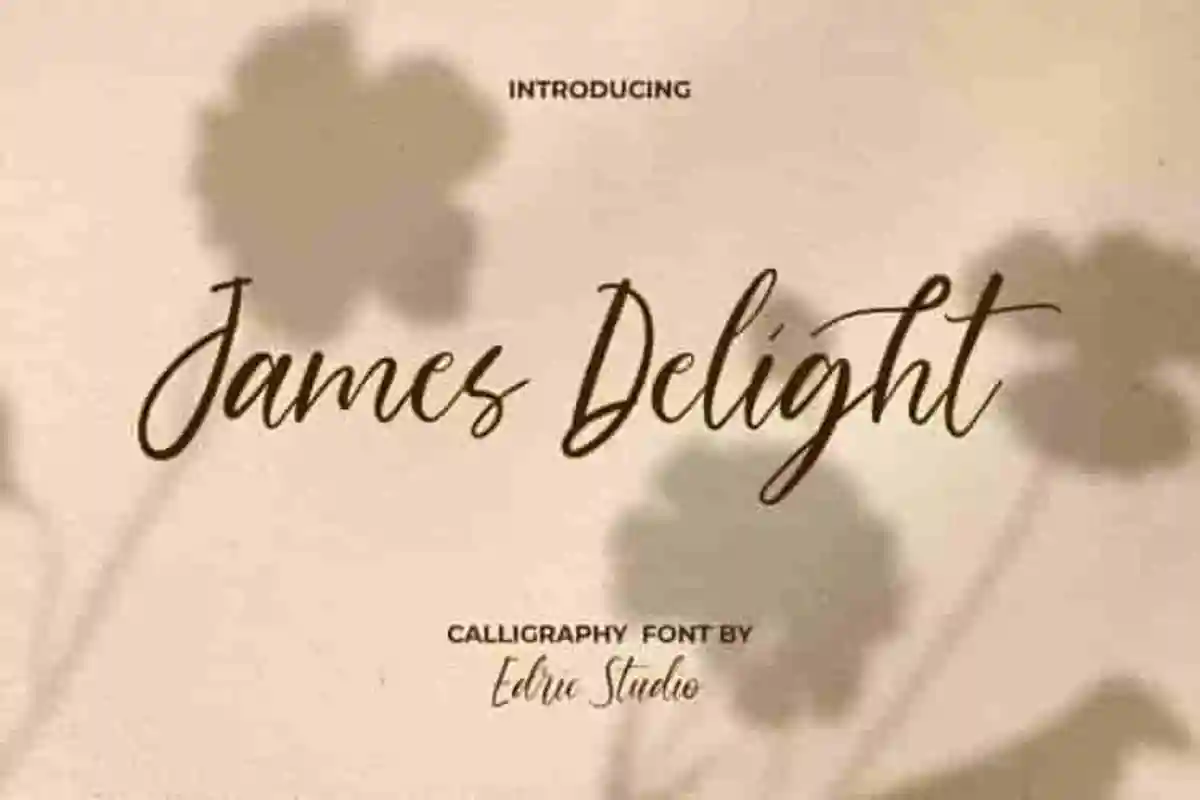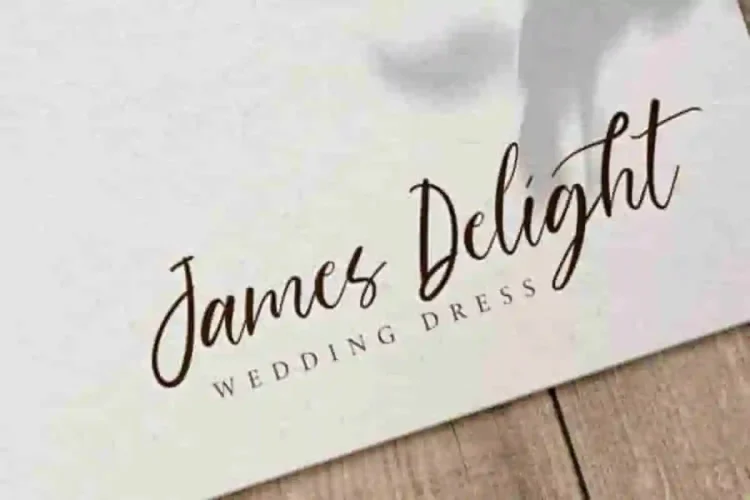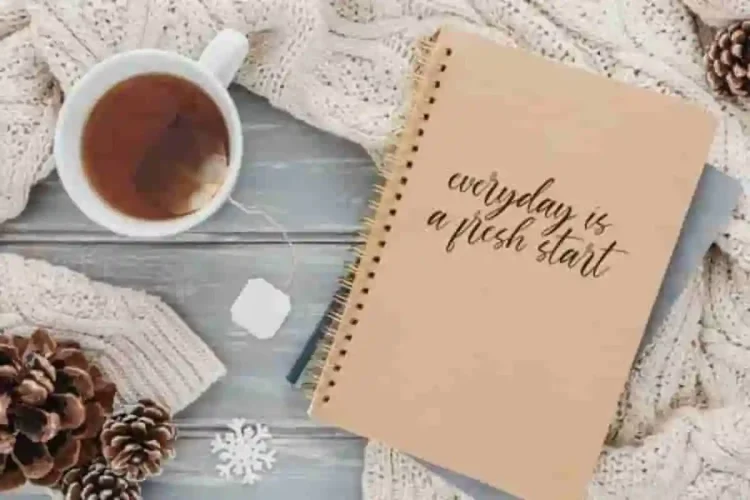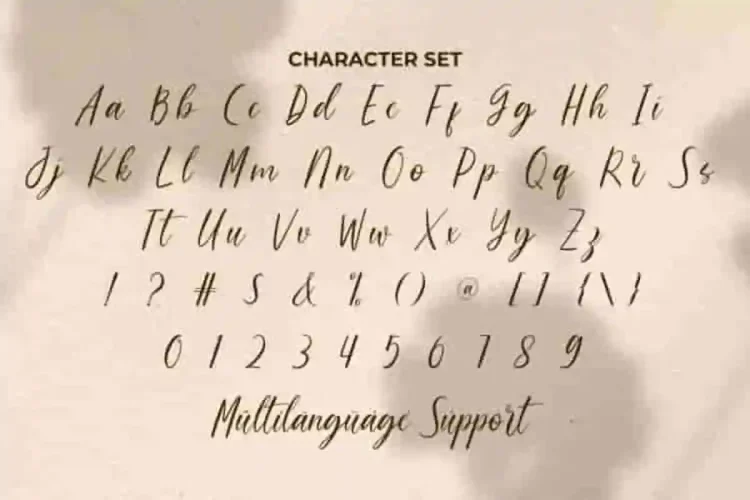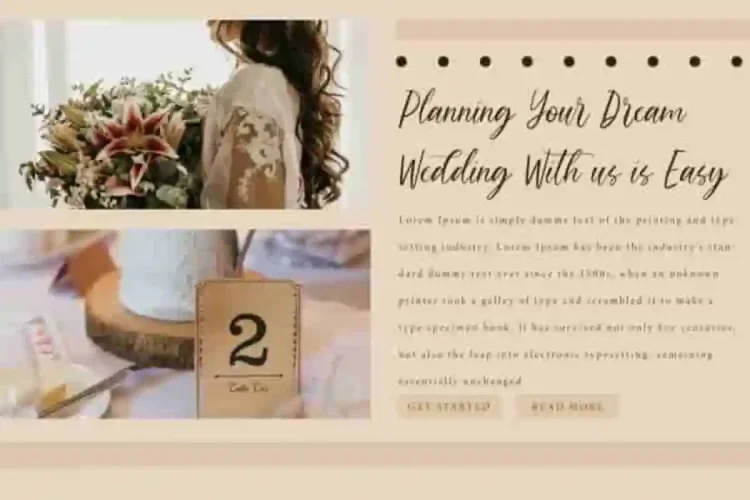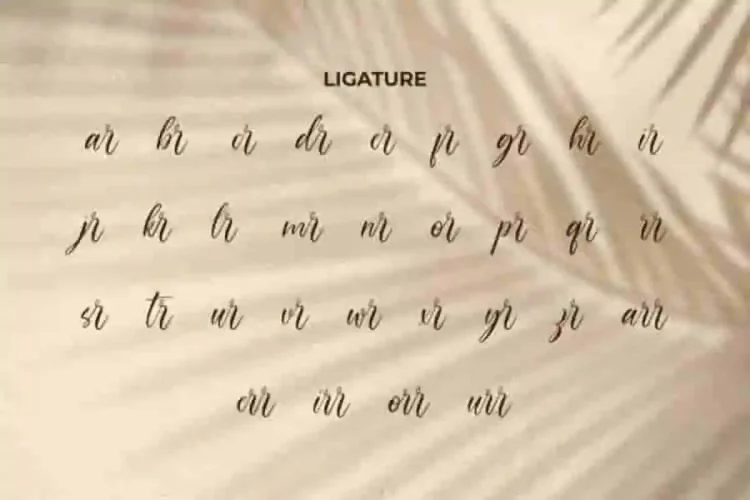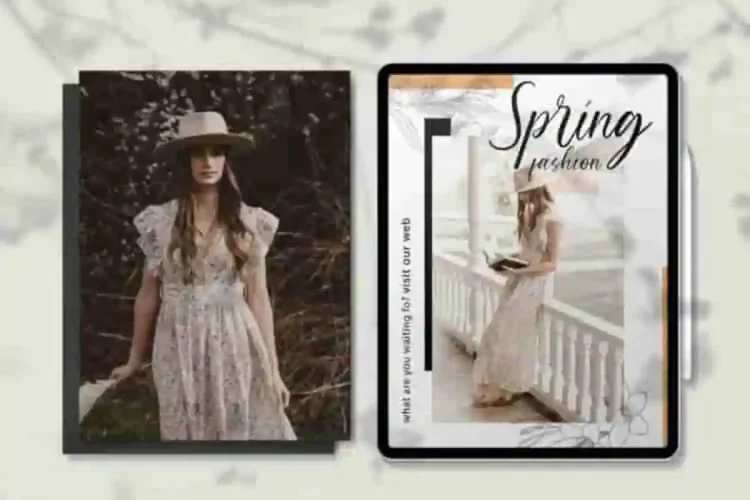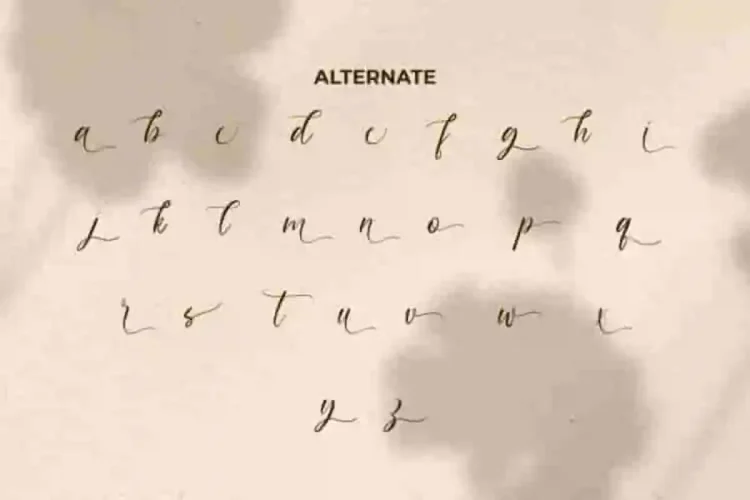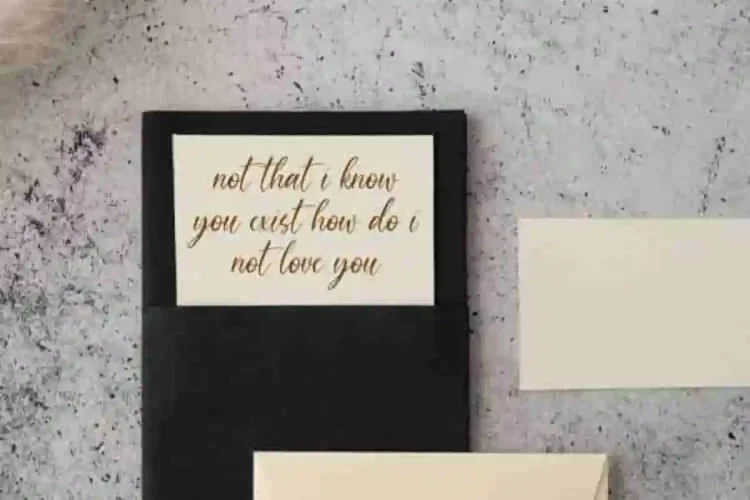
James Delight Calligraphy Font
James Delight Calligraphy Font is an organic handmade aesthetic calligraphy font that feels authentic with a personal charm. Perfectly fit for branding logos, business card, cover, headers, headline, logos, posters, quotes, stickers, title, watermarks, websites, and more.
James Delight Calligraphy Handwritting Font comes with a full set of Uppercase and Lowercase letters, Number, Punctuation, Symbol, Ligatures and Alternates. James Delight Font helps you express elegance with ease. Ideal for wedding organizers, bridal boutiques, cafés, fashion brands, photographers, restaurants, skincare, spa salons, and lifestyle creatives.
James Delight Font a playful typeface with unique decoration in each character. Combine different characters for a bespoke, handcrafted feel. It’s tested to work well in the Adobe Apps (Illustrator, Adobe InDesign, Adobe Photoshop) even work on Microsoft Word. All of these characters are available through the glyph panel, moreover each letter has its own unicode (PUA) so you can access all the characters easily.